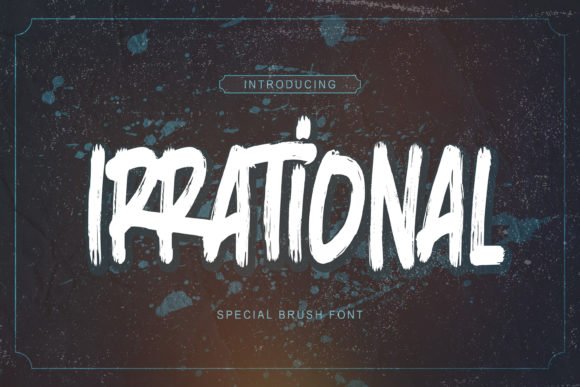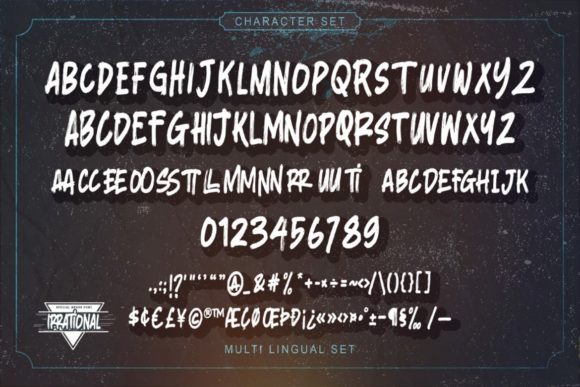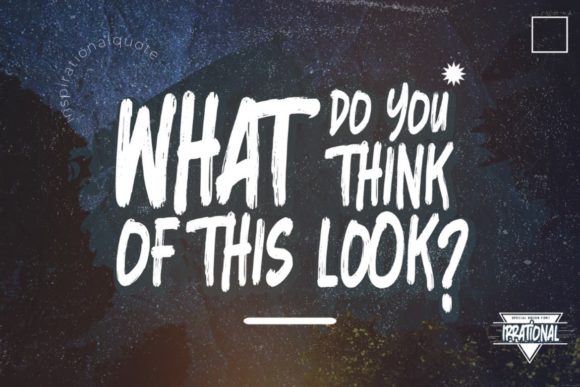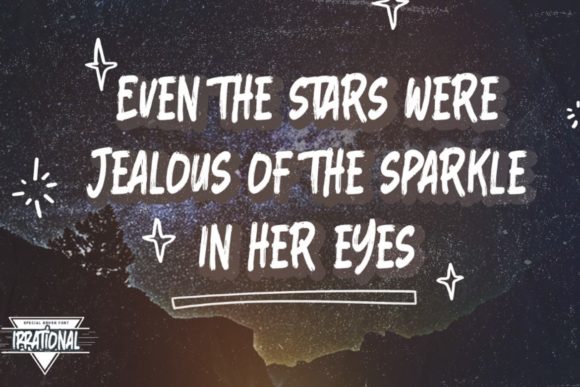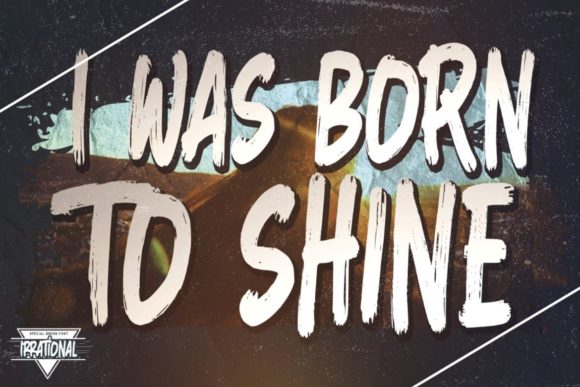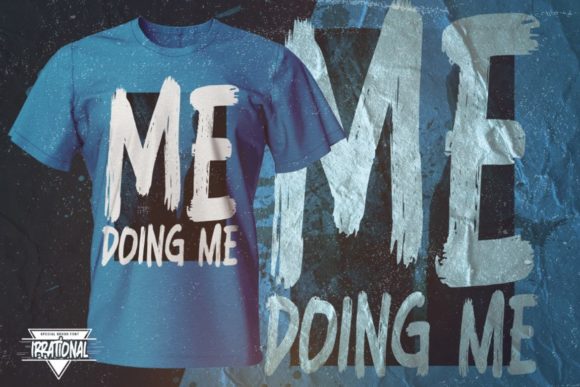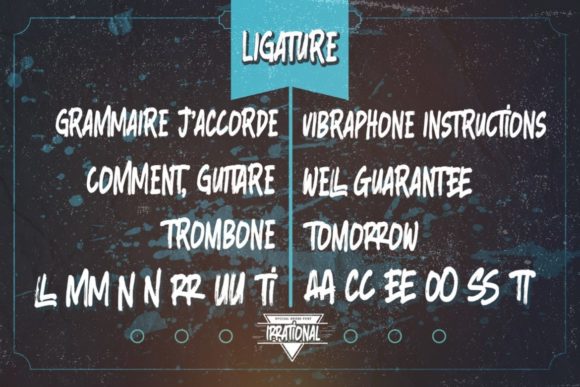
Give Your Designs a Boost of Cool with the Irrational Font
Remember that moment when you saw a bold, eye-catching design and immediately knew you wanted to create something similar? For designers, those moments are what drive us to experiment and push the boundaries of creativity. And, let’s be honest, sometimes it’s the smallest details that make all the difference – like the right font.
Enter the Irrational Font, a cool, brushed display font designed to make a statement. Whether you’re designing t-shirts, sportswear, logos, advertisements, or clothing, this font is sure to bring a touch of edginess to your work. With its versatility and unique style, the Irrational Font is a valuable addition to any designer’s toolkit.
Irrational Font Key Features
- Font Family: Irrational Font comes in multiple font styles, including Regular, Italic, Bold, and Bold Italic.
- Character Set: Supports a wide range of languages, including Latin, Cyrillic, Greek, and many others, making it suitable for global designs.
- Unique Characteristics: Features a unique, hand-drawn design with subtle imperfections, adding a touch of personality and whimsy to designs.
Irrational Font Review
As a designer, I was excited to dive into the Irrational Font and see what it had to offer. Overall, I’d say it’s a unique and interesting addition to any design project.
- Unconventional yet readable: The Irrational Font’s irregular shapes and lines make it stand out, but surprisingly, it’s still easy to read.
- Highly customizable: The font’s many variations and styles make it a great choice for designers who want to add a touch of personality to their work.
- Great for creative projects: The Irrational Font’s bold and quirky feel makes it perfect for projects that need a bit of flair.
- Limited legibility at small sizes: While the font is readable, it can become a bit fuzzy at smaller font sizes.
- May not be suitable for corporate or formal projects: The Irrational Font’s unconventional style may not be the best fit for more traditional or conservative designs.
Overall, I’d give the Irrational Font 4 out of 5 stars. It’s a great choice for designers who want to add some personality and flair to their work, but may not be the best fit for every project.
To get the most out of the Irrational Font, try using it in combination with other design elements, such as bold text or colorful backgrounds.
Experiment with different font sizes and styles to create a unique visual effect.
Use the Irrational Font to add a touch of whimsy or playfulness to your designs.
The Irrational Font is perfect for:
Designing playful and whimsical branding materials.
Creating eye-catching headlines and titles.
Adding a touch of personality to social media graphics and posts.
Alternatives to Irrational Font for Designers
Irrational Font is a modern sans-serif typeface known for its geometric shapes and clean lines. However, it may not be the best choice for every design project. Here are a few alternatives to consider:
Montserrat is a geometric sans-serif typeface designed for urban environments. It features a strong, industrial feel and is well-suited for headings and titles. Montserrat is similar to Irrational Font in its geometric shape, but it has a more robust and rugged feel.